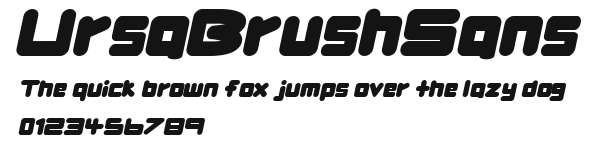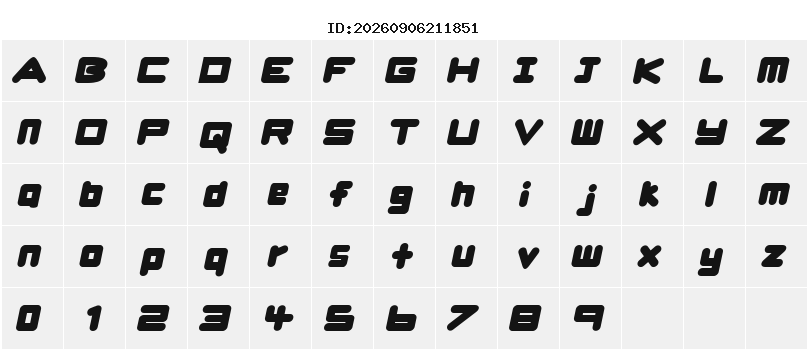
• Font Name: UrsaBrushSans
• Full Font Name: UrsaBrushSans-Oblique
• PostScript Name: UrsaBrushSans-Oblique
About UrsaBrushSans.ttf
UrsaBrushSans.ttf is a modern, elegant sans-serif font designed for ultimate readability and visual harmony. Perfect for branding, headlines, web design, and print materials.